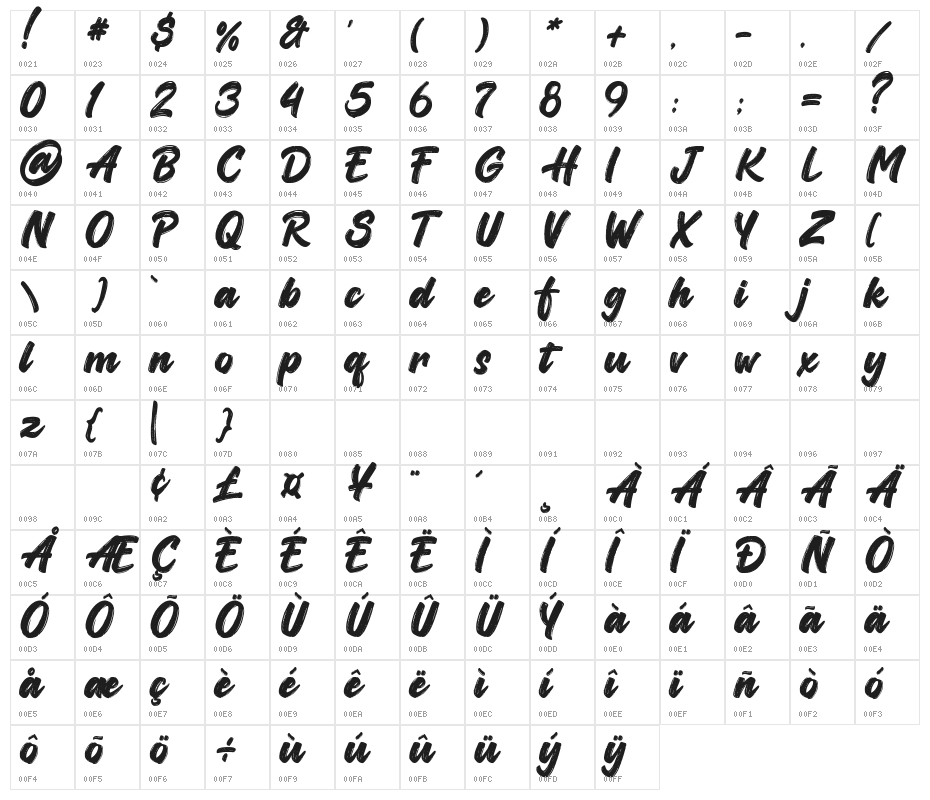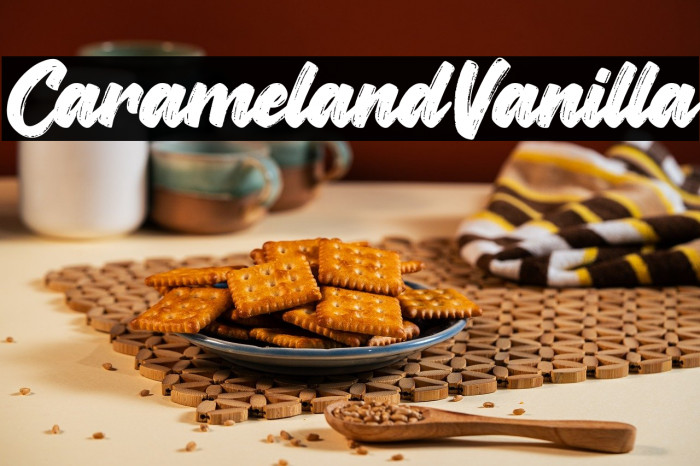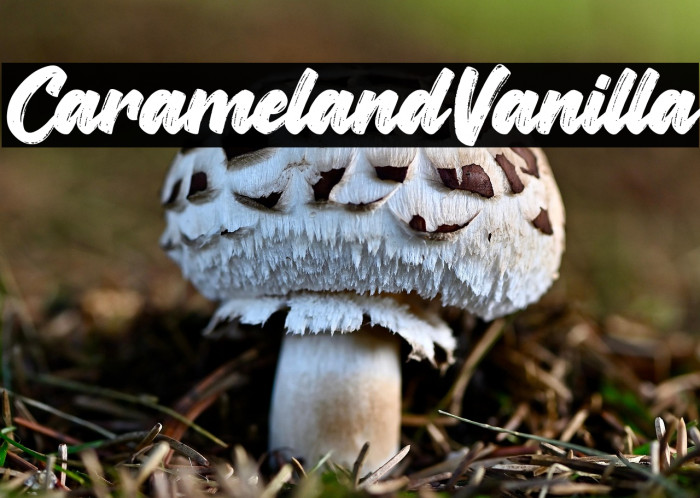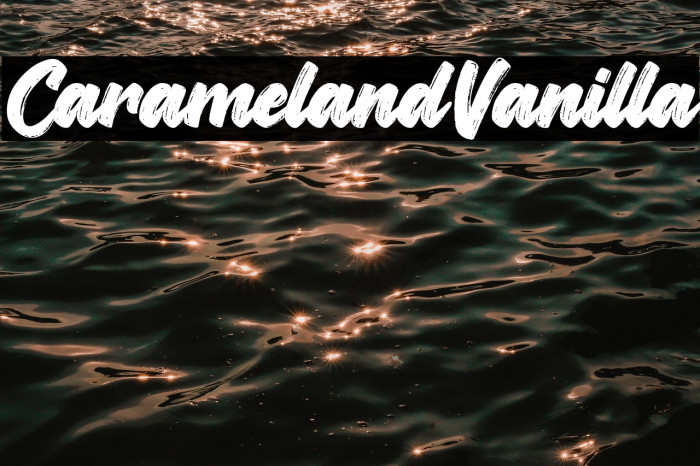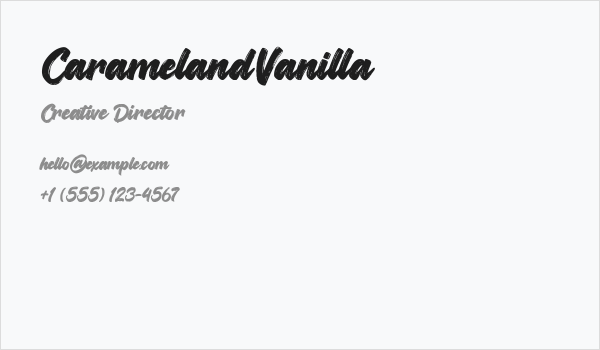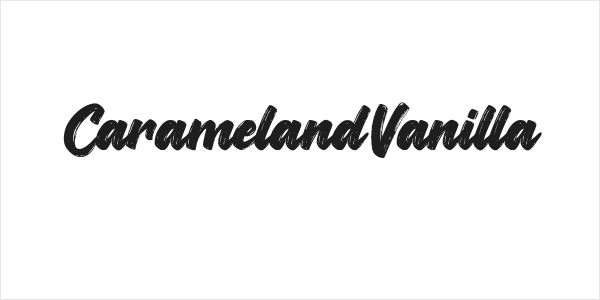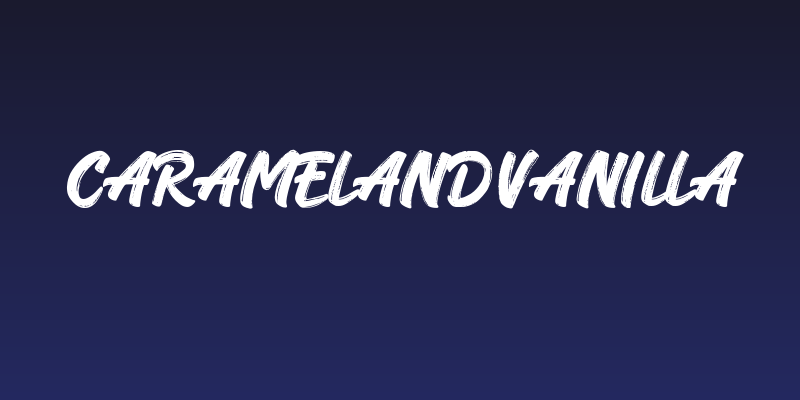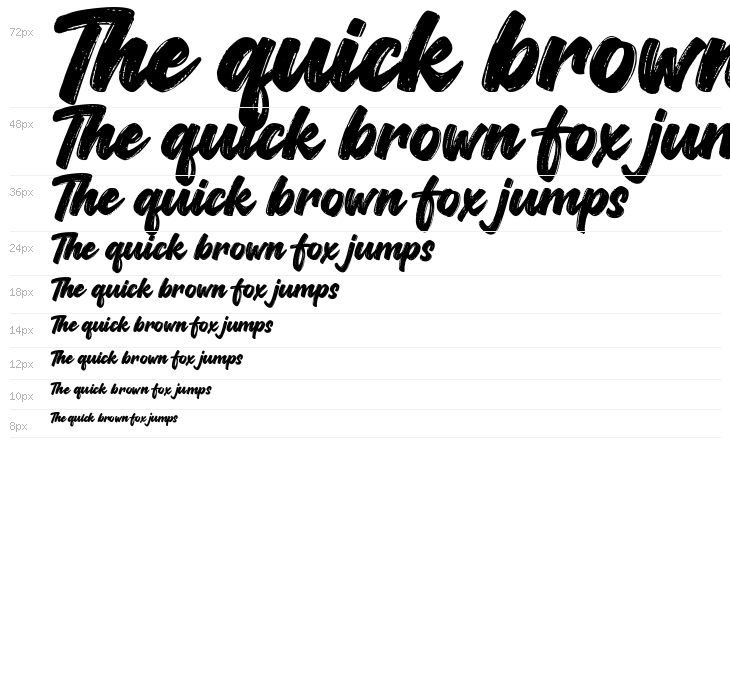
CaramelandVanilla Font
CaramelandVanilla Description
This font exudes a bold and energetic style with its thick, brush-like strokes that create a sense of movement and dynamism. The letters are crafted with a handwritten flair, giving them a personal and artistic touch. Each character is distinct, with a slightly uneven baseline that adds to the casual and informal appearance. The uppercase and lowercase letters maintain a consistent style, while the numerals and special characters integrate seamlessly, ensuring versatility across different uses. The overall design is both modern and expressive, making it suitable for projects that require a strong visual impact.